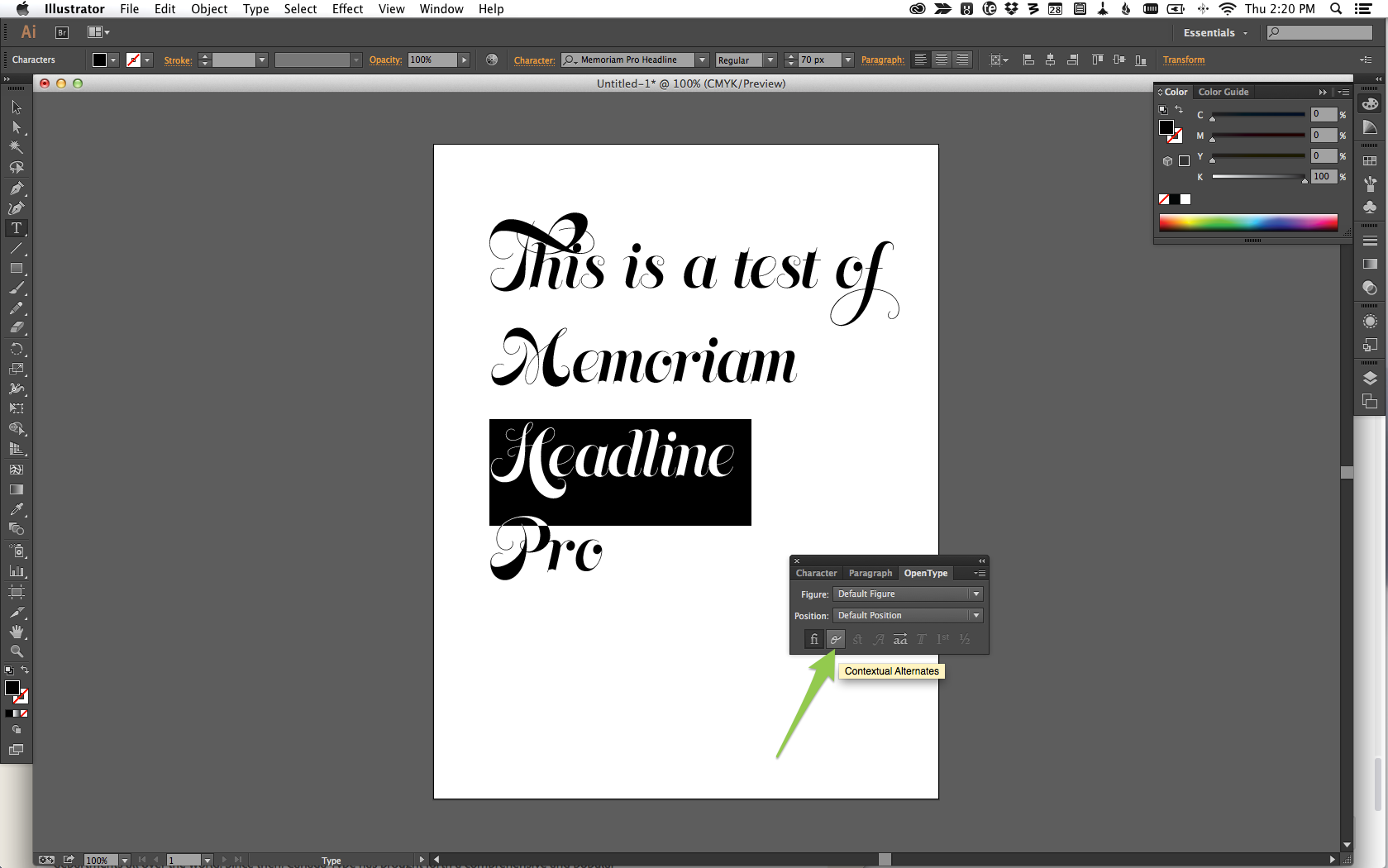
Type kit font is displaying incorrectly
So I synced the memoriam headline pro font from Adobe TypeKit and the L is displaying incorrectly compared to what is online. I have included two screen shots. The left side is illustrator the right side is Adobe TypeKit. Anyone else experience this issue before? I have tried to unsync and resync, reboot illustrator etc and it has not corrected.
This is Ben from Typekit. I've attached a screenshot to show how you can turn off the Contextual Alternates with the OpenType panel in Illustrator.